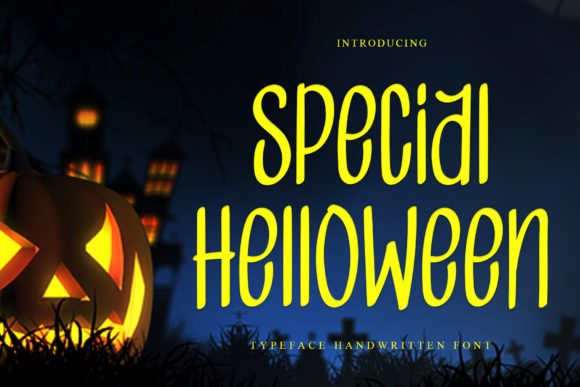
In a world where pixels dance across screens, Special Helloween emerges from the depths of creativity, a display font born to enchant. It's a font that speaks to your heart, whispering tales of whimsy and charm. With its graceful curves and playful strokes, Special Helloween promises to transform your designs into captivating masterpieces.
Let your imagination run wild as you explore the endless possibilities that Special Helloween brings. Its versatility knows no bounds. Whether you're crafting logos that demand attention, designing labels that exude charm, or creating apparel that tells a story, Special Helloween is your trusted companion. It's the font that breathes life into your ideas, turning them into tangible works of art.
With Special Helloween by your side, you'll discover a world where designs bloom with personality. Its natural and casual touch adds a layer of authenticity to your projects, making them stand out from the ordinary. It's a font that embraces the beauty of imperfection, allowing your designs to resonate with a genuine and heartfelt charm.
And when it comes to wedding invitations, Special Helloween shines like a beacon of elegance. Its delicate strokes and enchanting curves create an atmosphere of romance and magic, promising to make your special day even more memorable. Let Special Helloween be the keeper of your love story, guiding your guests through an unforgettable journey of emotions.